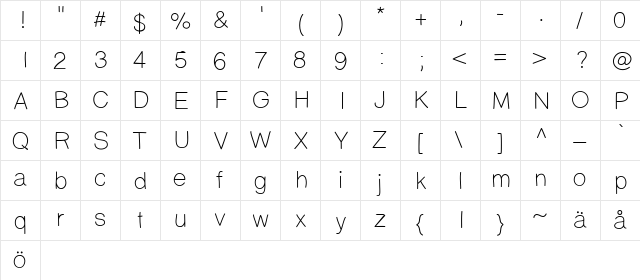
PrinsesstartaDEMO Light
| Foundry | Shara Weber |
| Designer | Shara Weber |
Design Context for PrinsesstartaDEMO Typeface
PrinsesstartaDEMO takes a measured approach to typography — its balanced proportions and neutral character make it a reliable workhorse for both digital and print work. The delicate stroke weight brings airiness and refinement to layouts.